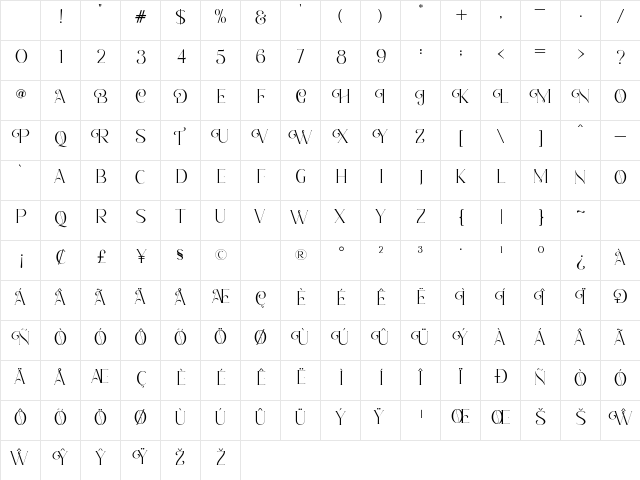
Romantic Serif carries the refined structure of traditional serif typography, with bracketed terminals and considered proportions that communicate credibility and craft.
Pro Tip: Use Romantic Serif for editorial body copy and considered headline work. Pair with a neutral sans for UI elements or captions to create a classic hierarchy.